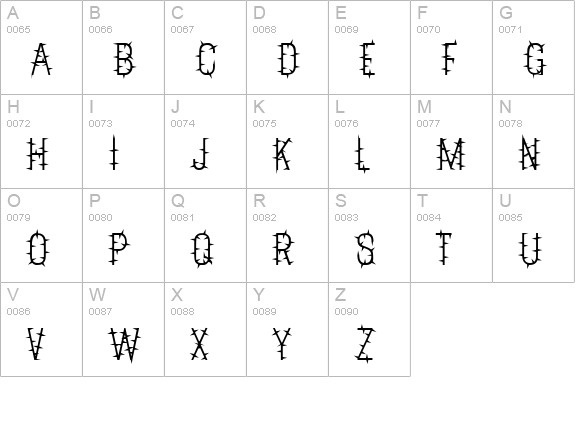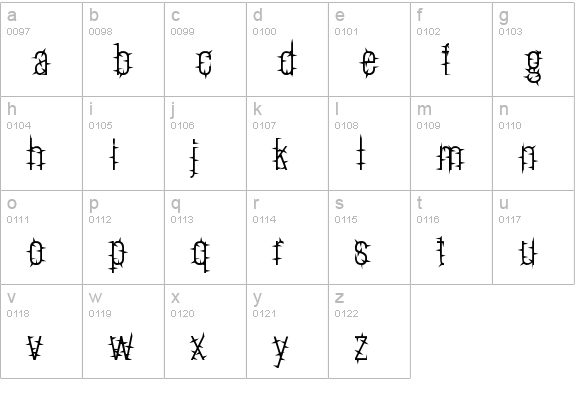
MyhotaWithSpikes Font Details
MyhotaWithSpikes font is a striking and bold typeface that exudes a sense of edgy sophistication. Its unique design features sharp spikes that add a sense of dynamism and energy to any text. This font is perfect for projects that require a strong and impactful visual presence. The best part about MyhotaWithSpikes font is that it is completely free to download. You can easily access this font and enhance your designs without any cost at FontsMarket.com. Whether you're working on a poster, logo, or website, MyhotaWithSpikes font will surely make a statement and leave a lasting impression. Elevate your design projects with this eye-catching and free font today!